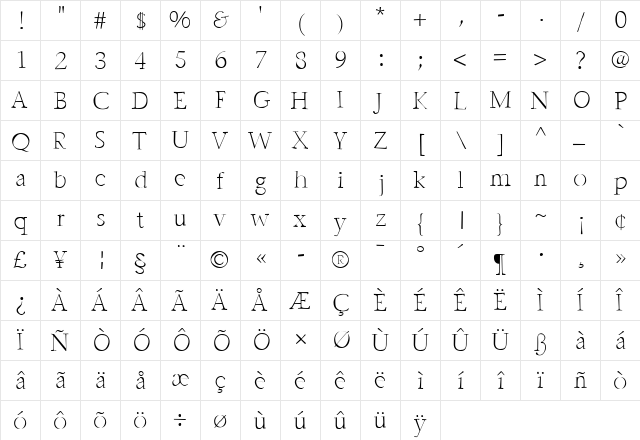
Godlike Medium
Design Context for Godlike Typeface
Godlike is a composed and adaptable typeface that performs quietly and consistently across a wide range of design contexts.